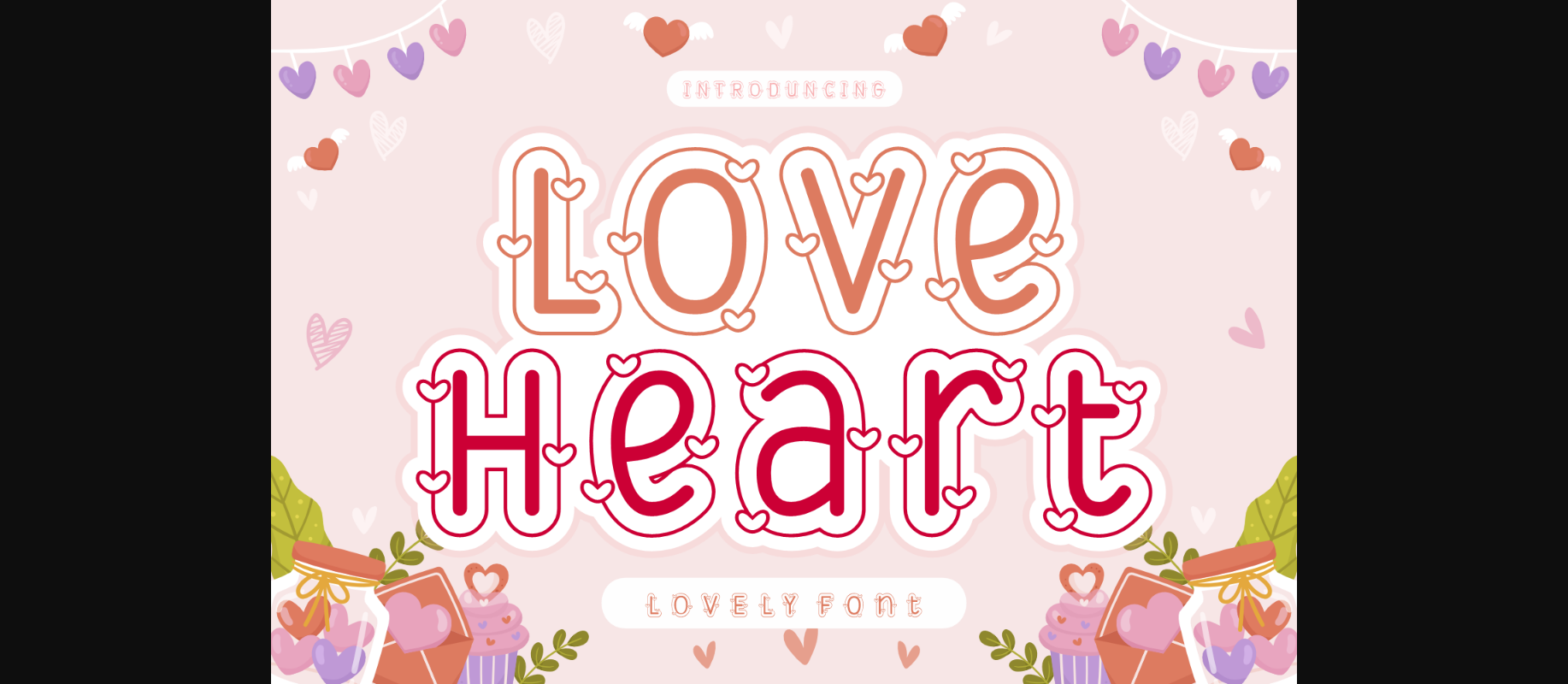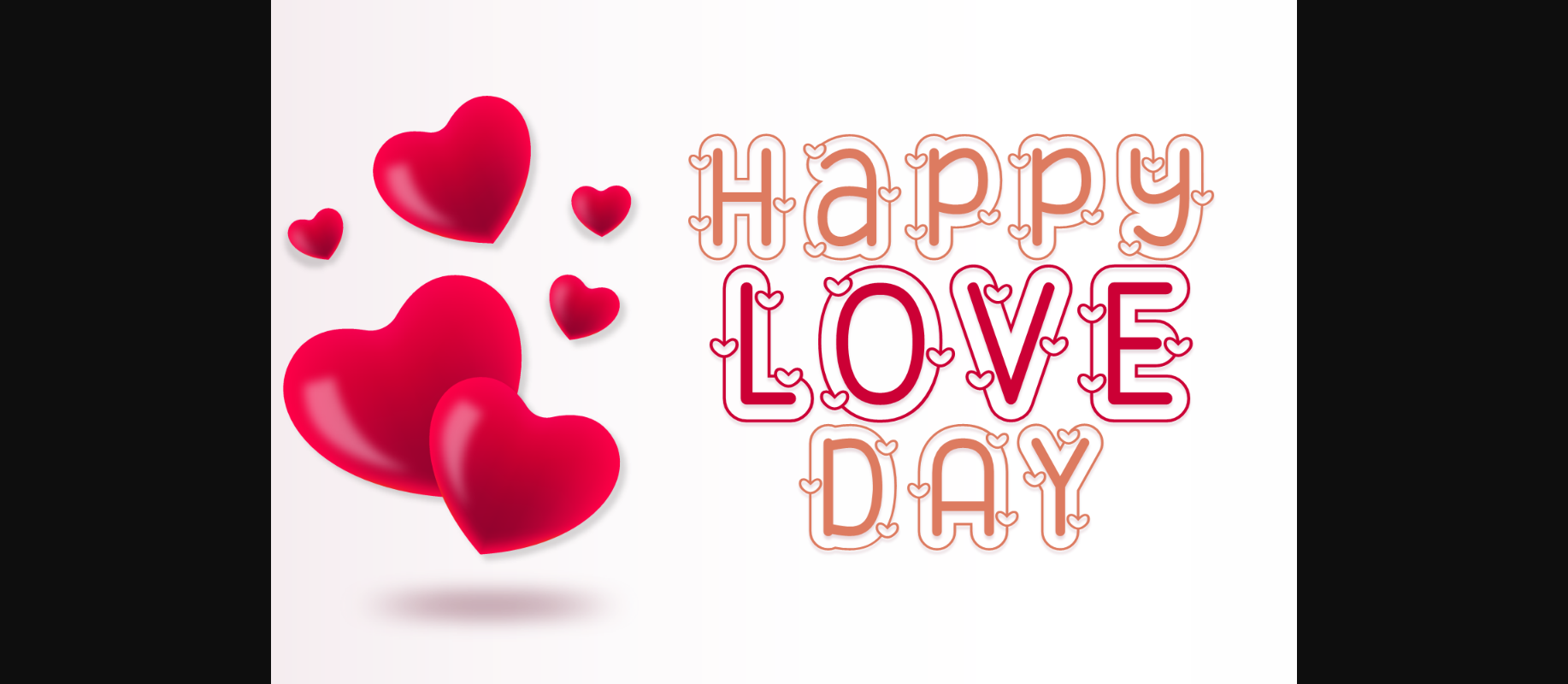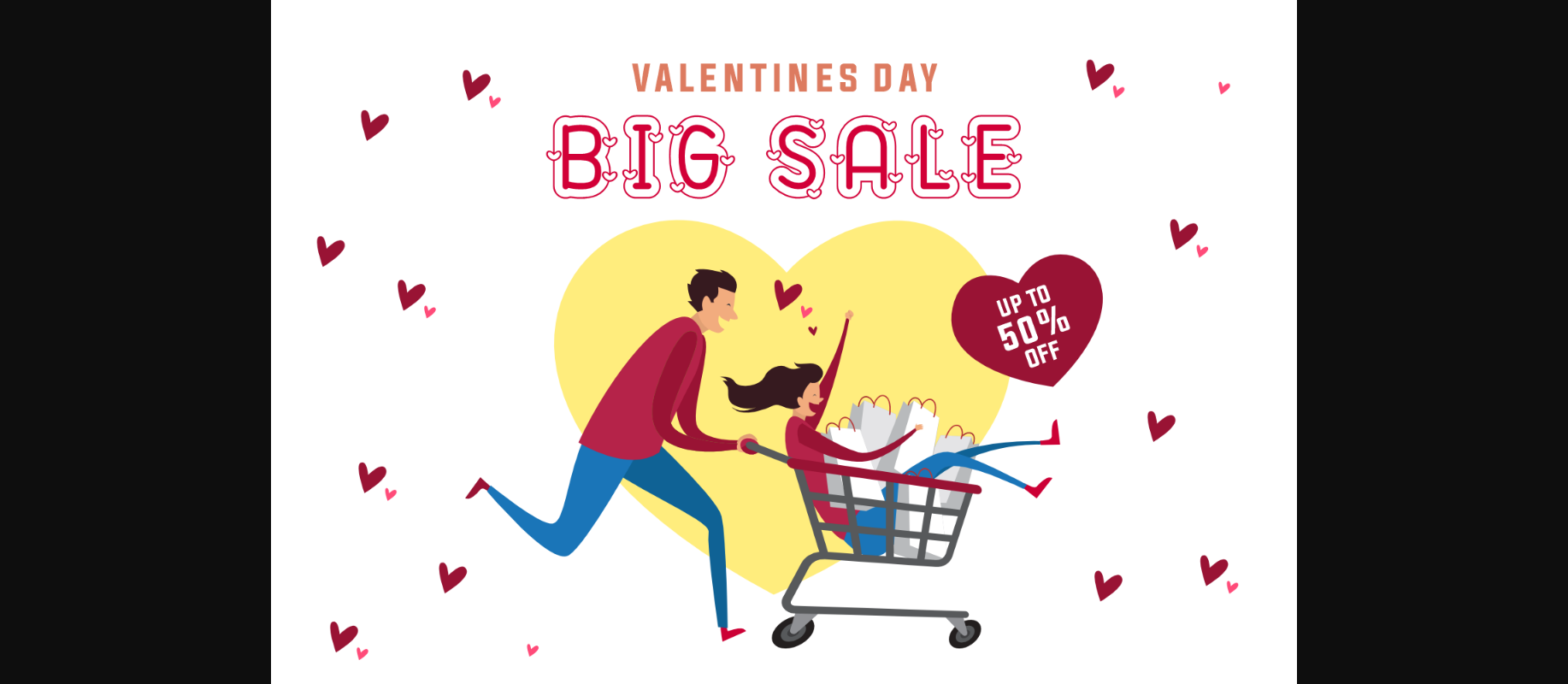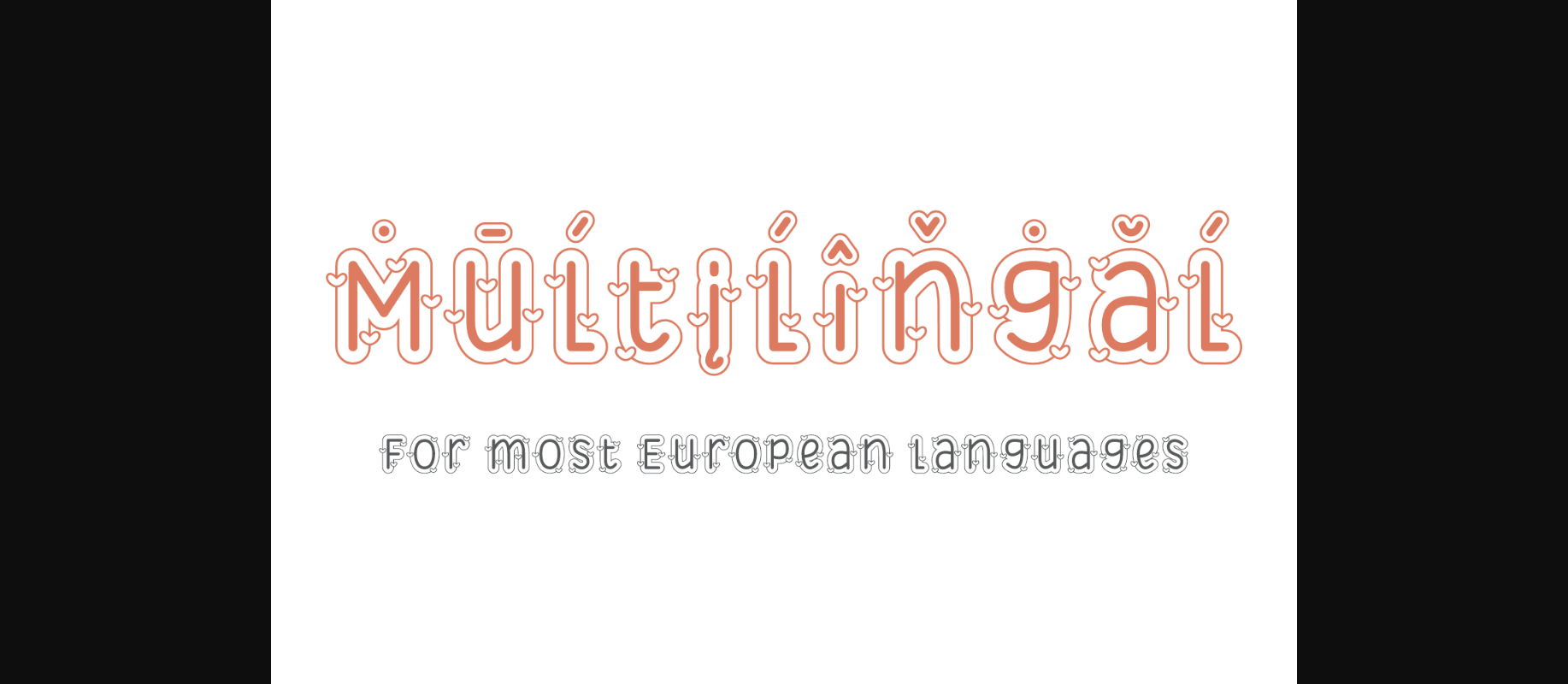
Love Heart Font
About Love Heart Font
Love Heart is a lovely and romantic decorative font that is perfect for projects that need a touch of elegance and charm. Its intricate and delicate design creates a sense of romance and nostalgia, while its decorative elements add a touch of sophistication and beauty. Ideal for branding, wedding invitations, and any project that requires a font that is both lovely and romantic.